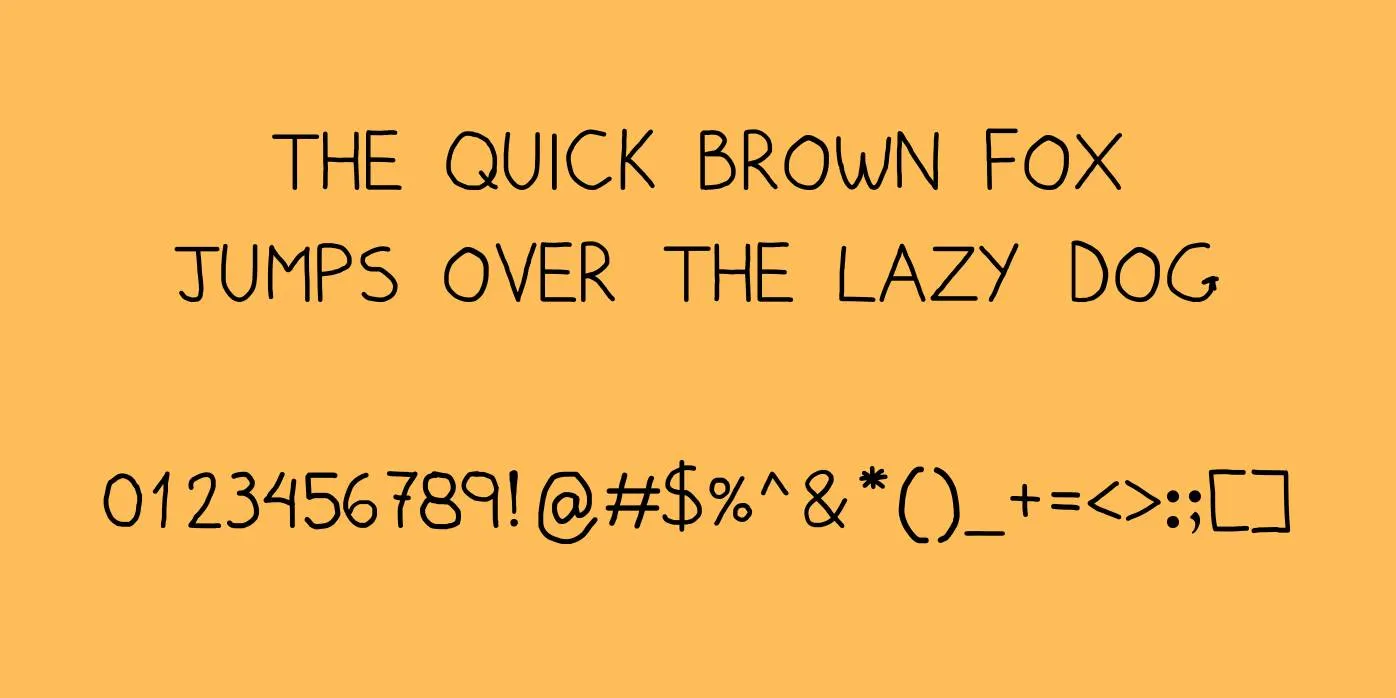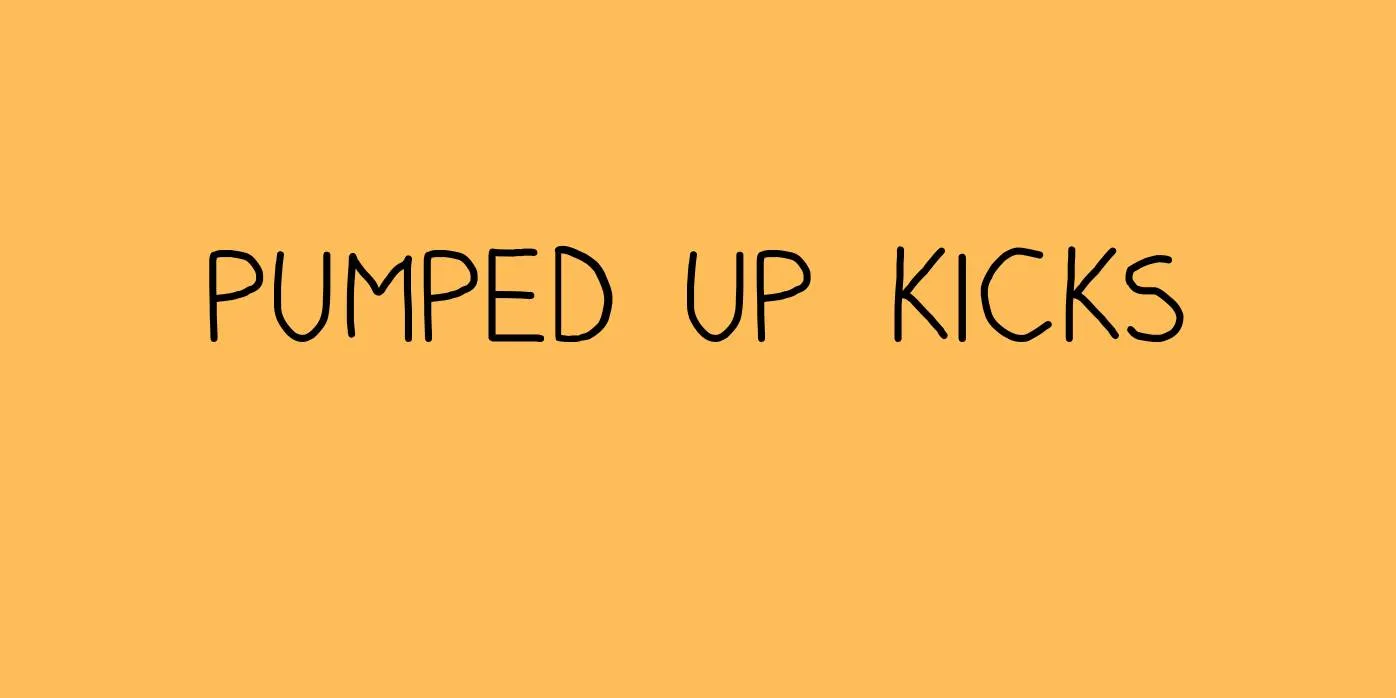
Pumped Up Kicks Font
Pumped Up Kicks Font is a handwritten type of font. Catherine is the designer of this typeface. There are 236 stunning glyphs for this typeface. The online generator tool for this texture is amazing and stunning.